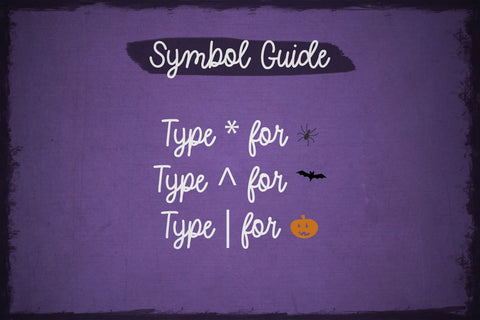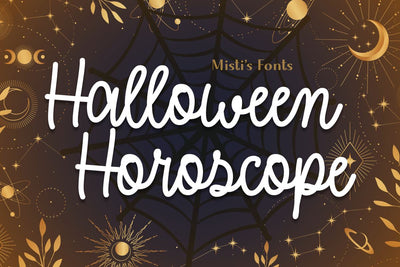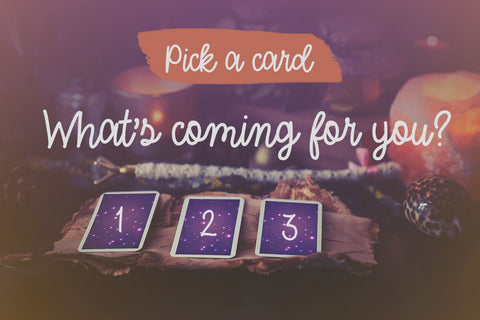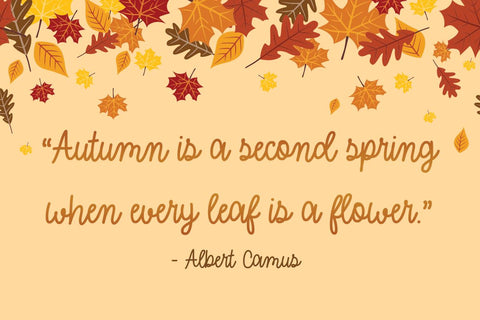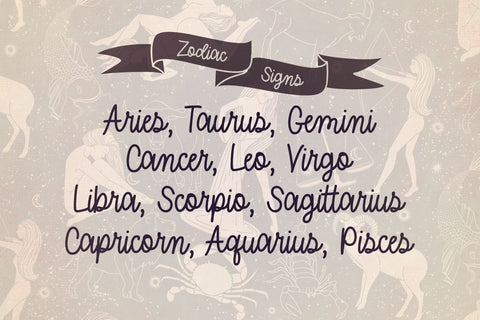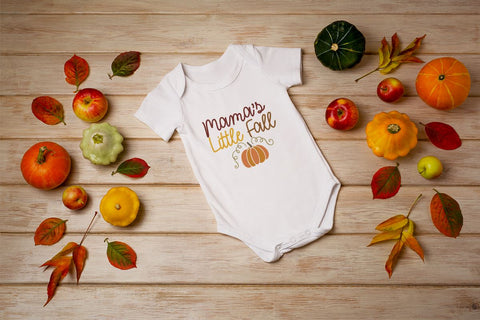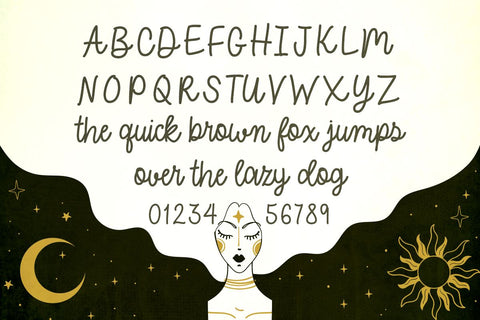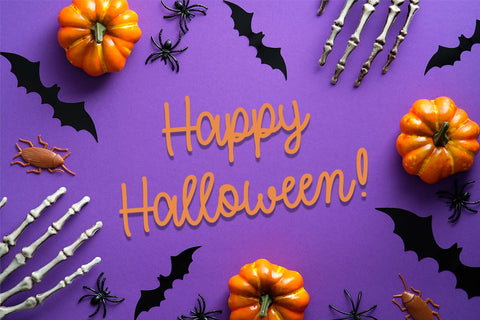
Halloween Horoscope
Halloween Horoscope is a super fun handwritten font inspired by the upcoming spooky season. It has the perfect vibe for a variety of projects, including logos, sublimation projects, product labels, posters, greeting cards, and so much more!